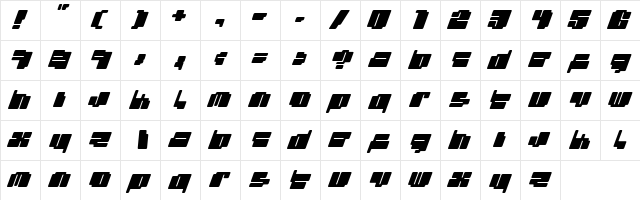
09 27 Regular
Design Context for 09 27 Typeface
09 27 is a composed and adaptable typeface that performs quietly and consistently across a wide range of design contexts.